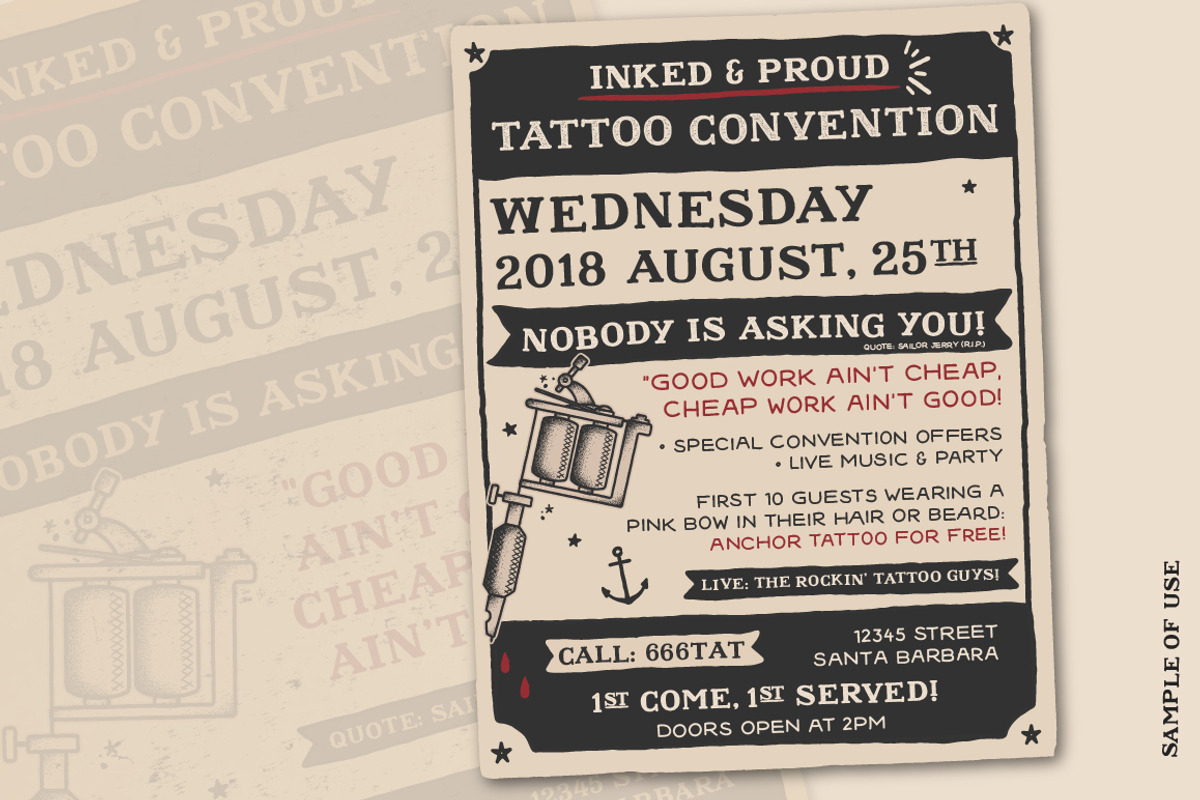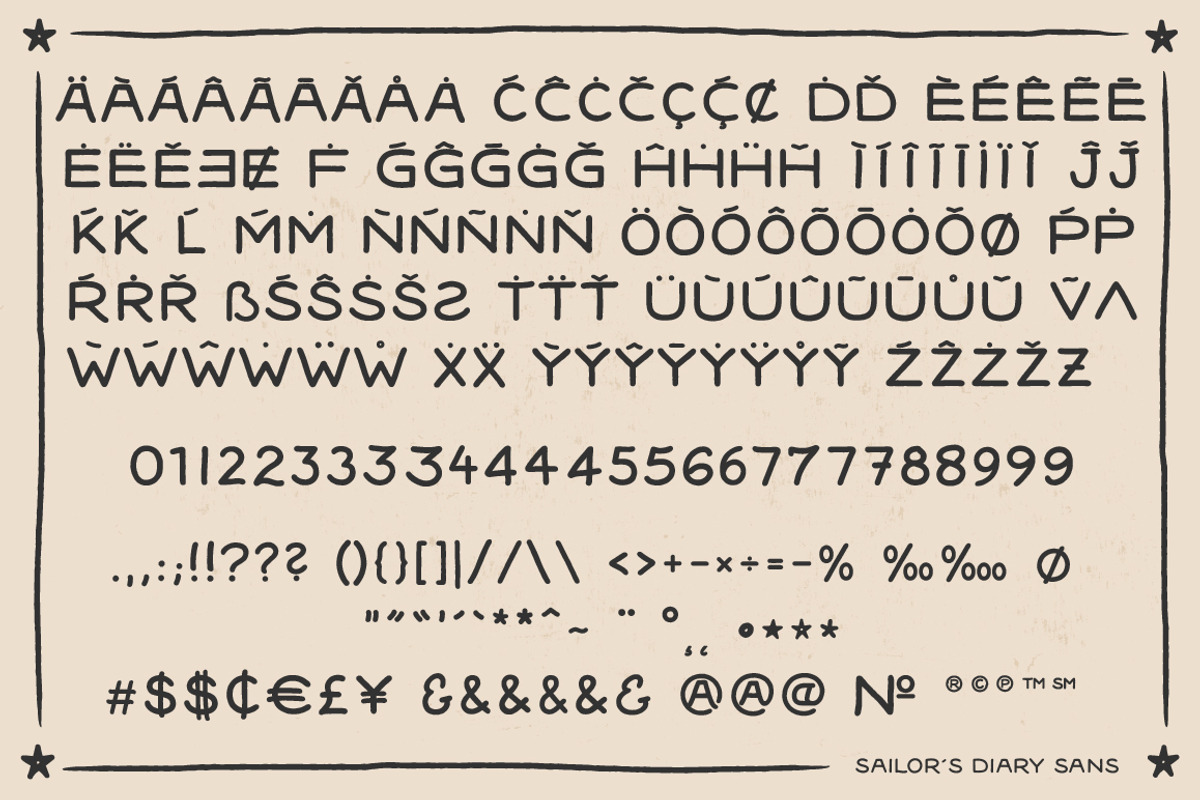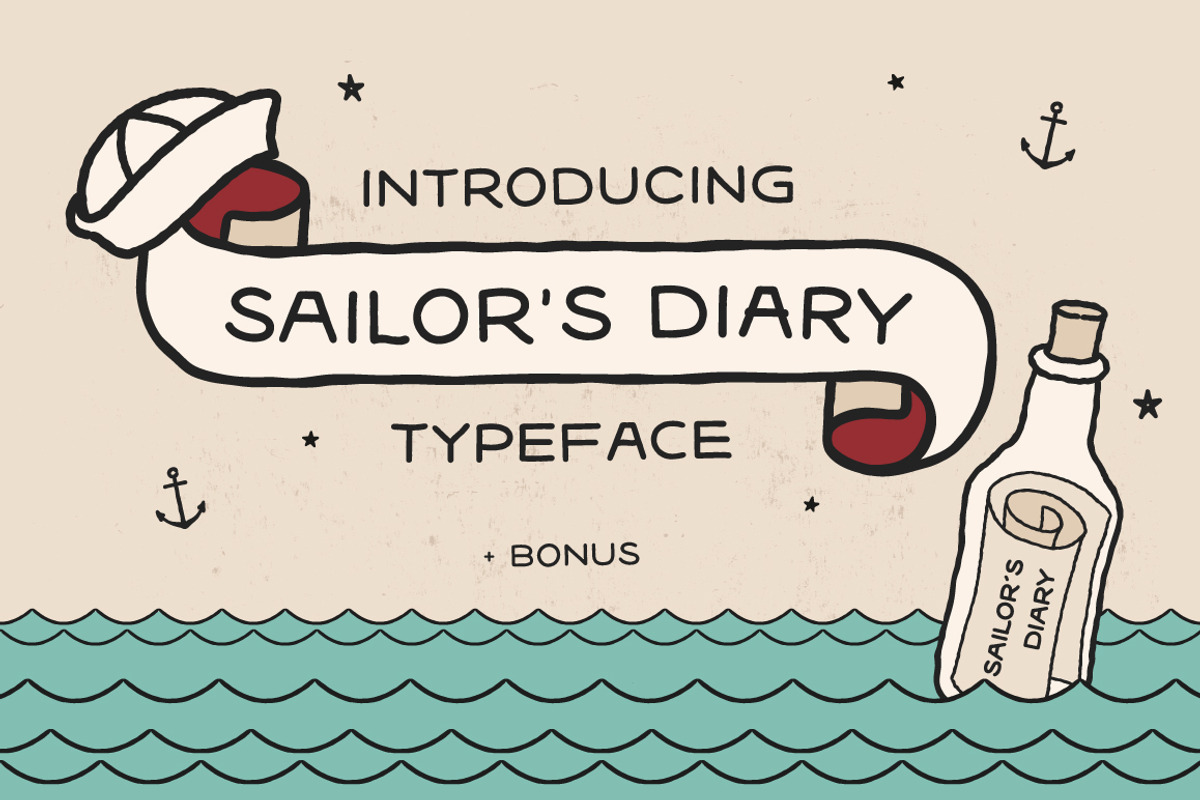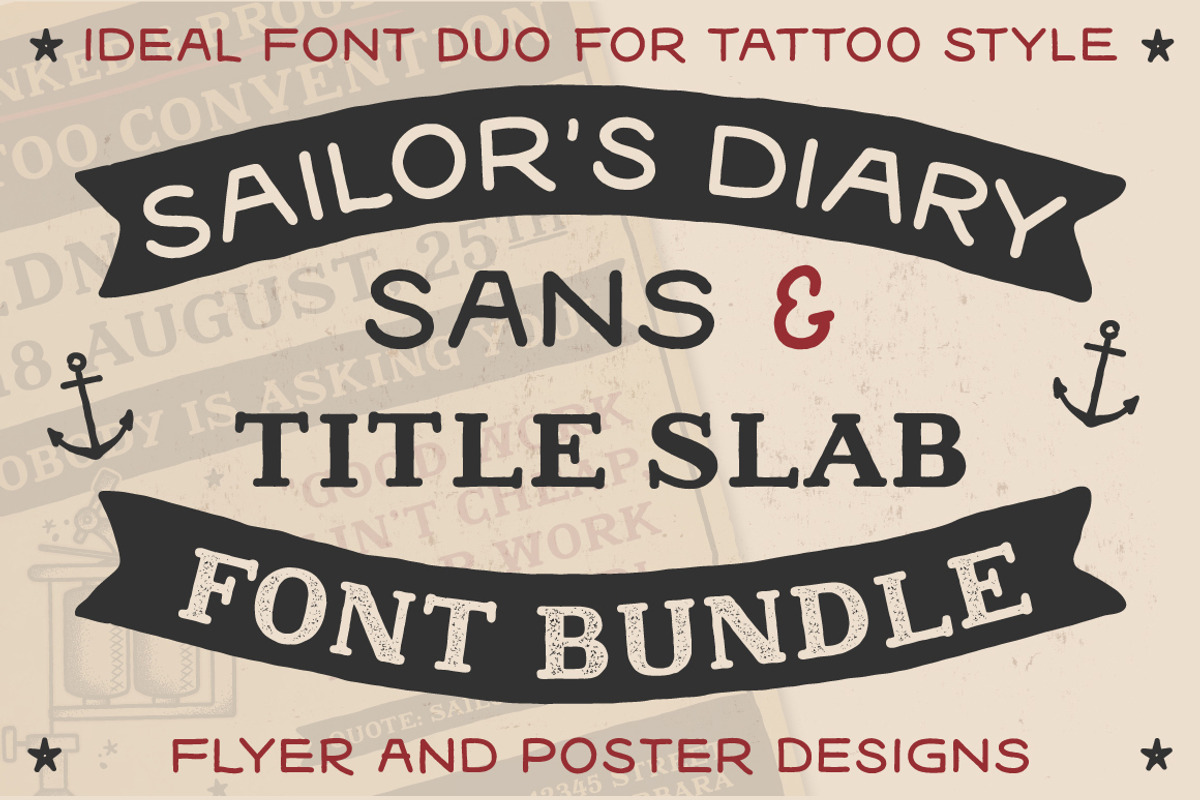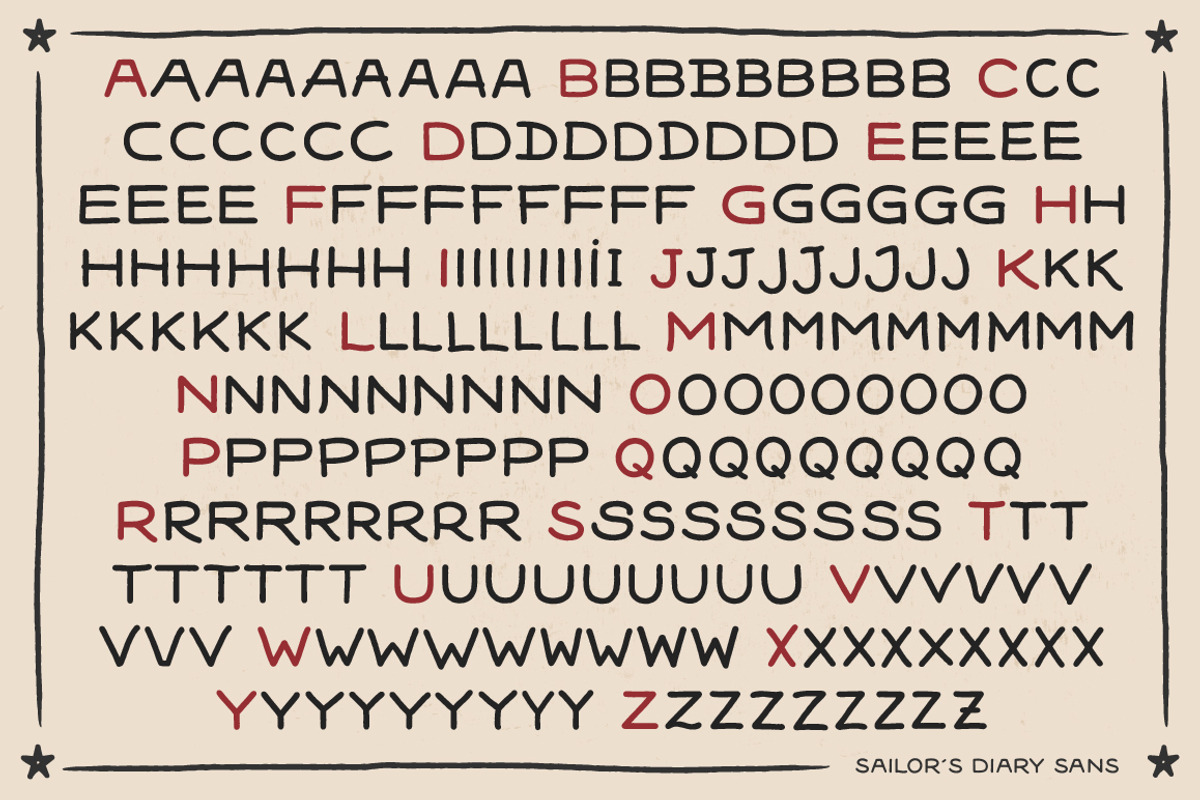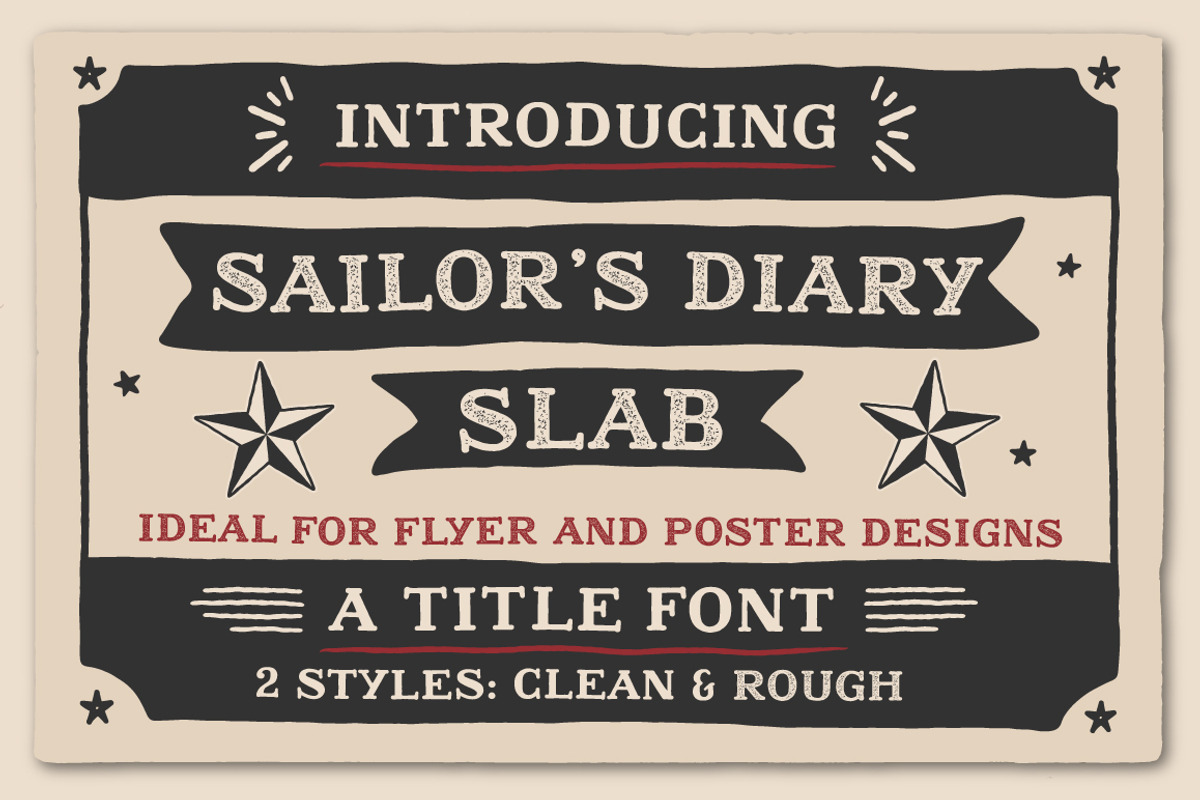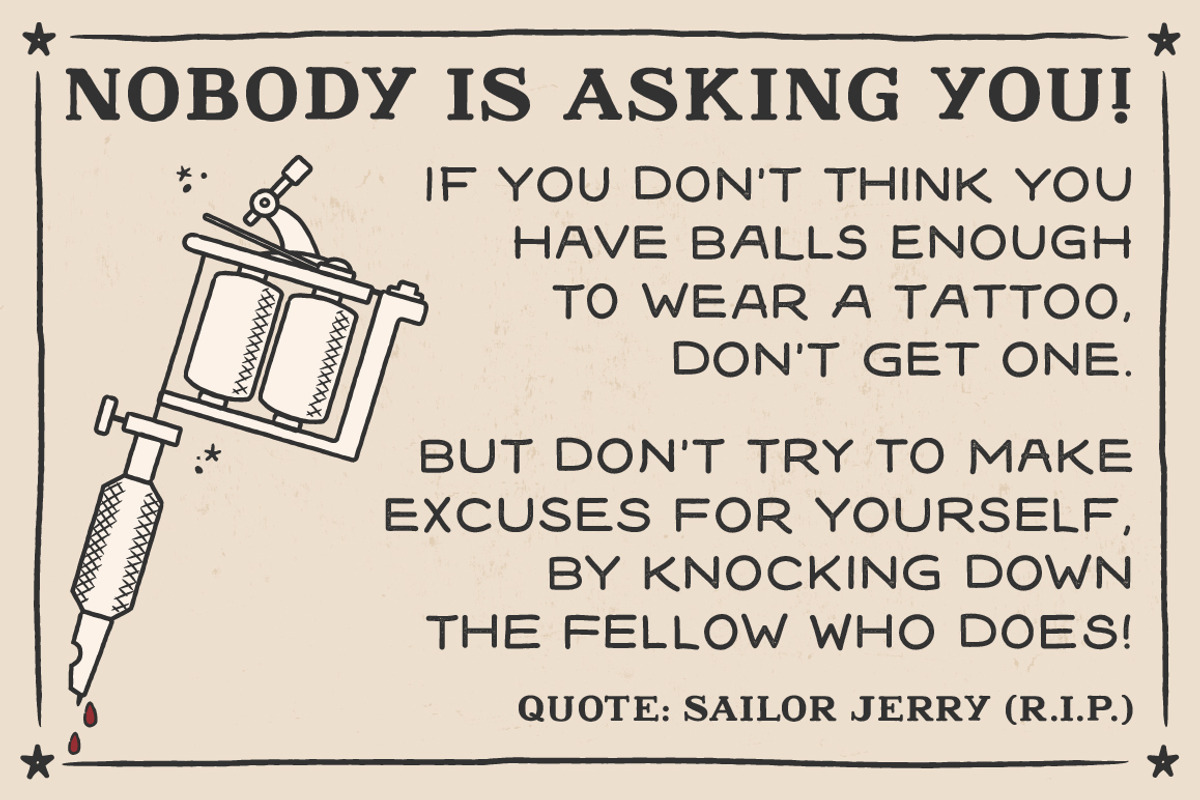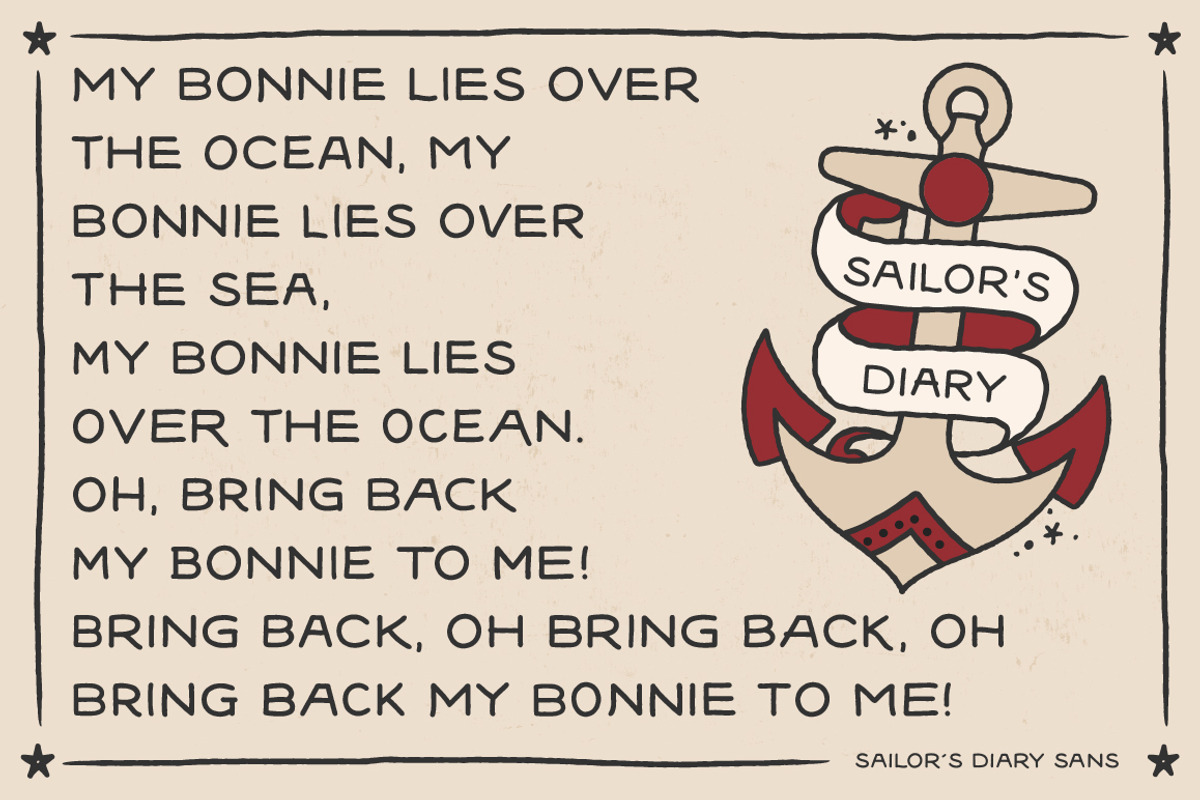
Sailors Diary Font Bundle
Hand Made Tattoo Style Font Duo
This bundle of hand drawn traditional tattoo fonts is perfect for old school flyer and poster designs.
This font is ideal for banners and scrolls with traditional tattoo designs or posters with a lot of text. With more than 220 alternate letters and more than 180 special characters, punktuations and their alternates you can give text a real hand written character.
Sailor´s Diary Title Slab
UPDATE: rough version
This font is perfect for posters and flyer in traditional tattoo design styles, specially for titles and important informations.